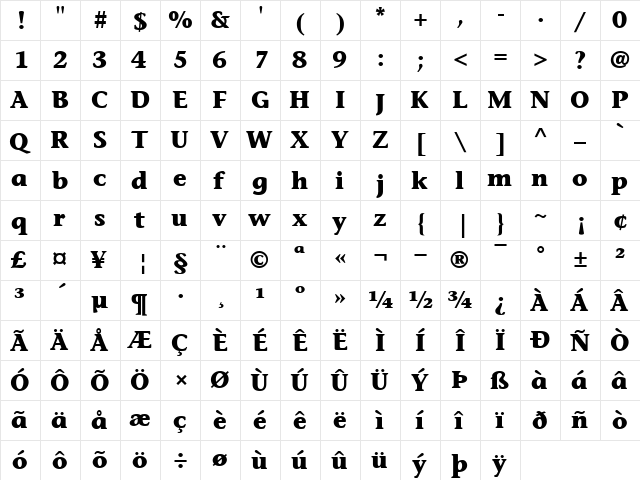
ITCStoneInformal Bold
Design Context for ITCStoneInformal Typeface
ITCStoneInformal offers clean, dependable letterforms without strong stylistic allegiance, making it a practical choice for designers who need flexibility. The heavy weight commands attention and anchors typographic hierarchies.